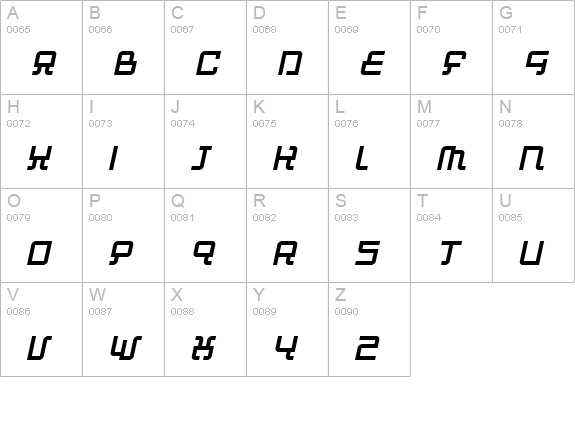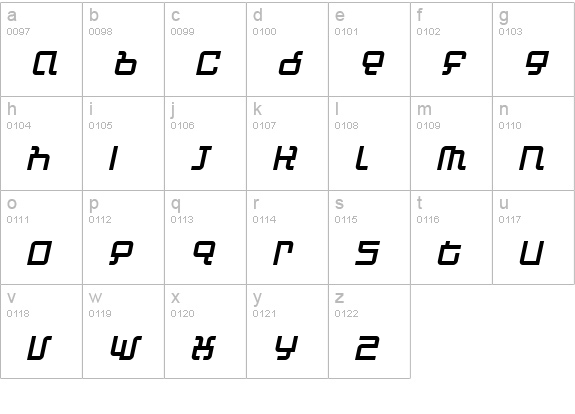
Automind Italic Font Details
Automind Italic is a distinctive, italic variant in the Automind typeface family \xE2\x80\x94 well suited to design and typography projects.
Automind Italic font is a sleek and modern typeface that effortlessly combines elegance with boldness. Its italicized style adds a touch of sophistication to any design project, making it perfect for headings, quotes, and branding materials. The flowing curves and sharp edges of Automind Italic create a dynamic and eye-catching look that is sure to capture attention. Best of all, Automind Italic font is available for free download at FontsMarket.com. Whether you're a designer looking to elevate your work or someone who simply appreciates beautiful typography, this font is a must-have addition to your collection. Don't miss out on the opportunity to enhance your projects with the unique charm of Automind Italic font - download it today and let your creativity soar.